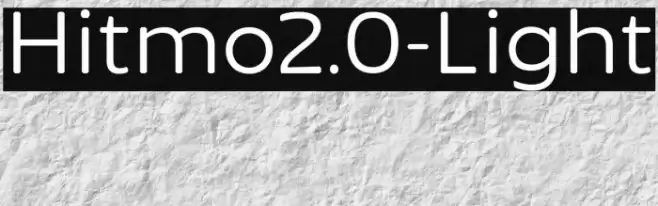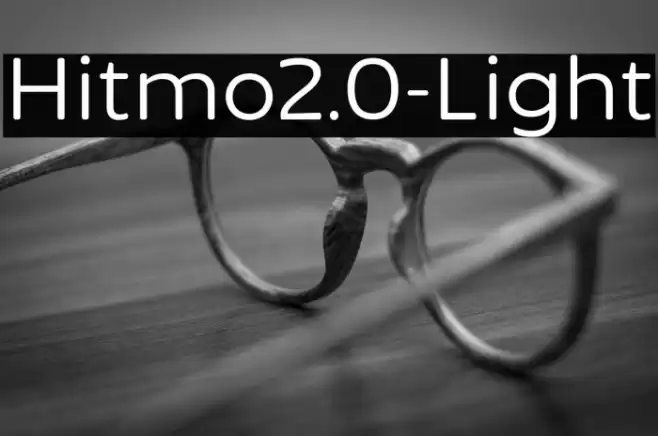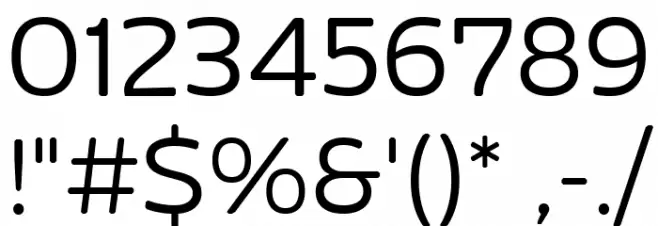
Hitmo2.0-Light Font
Hitmo2.0-Light Description
This font features a clean and modern sans-serif design with a light weight, making it ideal for a minimalist aesthetic. The characters are evenly spaced with a slightly rounded appearance, providing a friendly and approachable feel. The uppercase and lowercase letters maintain a consistent height and width, ensuring readability across various applications. The numerals are clear and distinct, while the special characters are well-integrated, enhancing the font's versatility. Its simplicity and clarity make it suitable for both digital and print media.
A modern, light sans-serif font with a clean and minimalist design from Regular fonts.
- Proposed Projects: Ideal for branding, web design, user interfaces, and minimalist print materials.